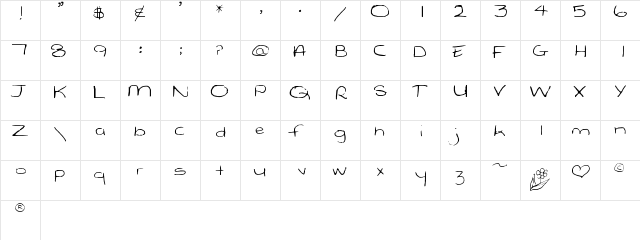
Saphire Regular
Design Context for Saphire Typeface
Saphire takes a measured approach to typography — its balanced proportions and neutral character make it a reliable workhorse for both digital and print work.